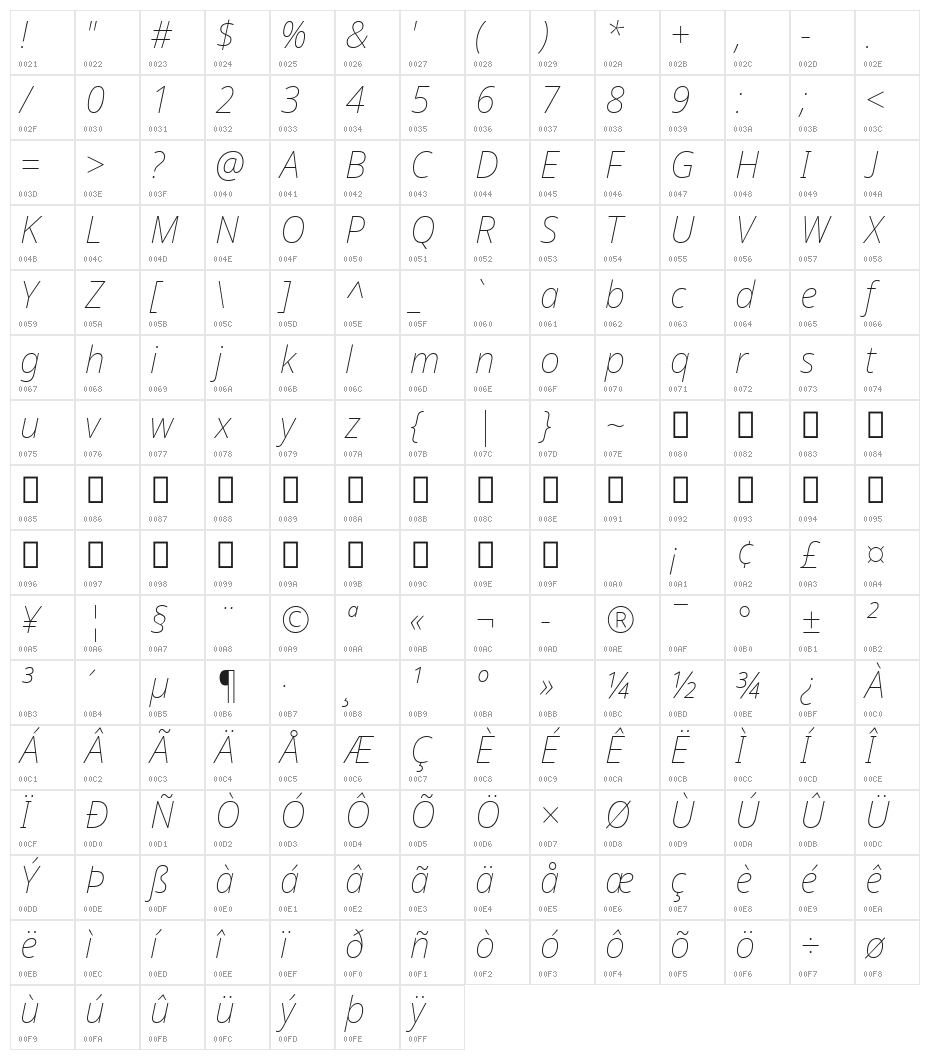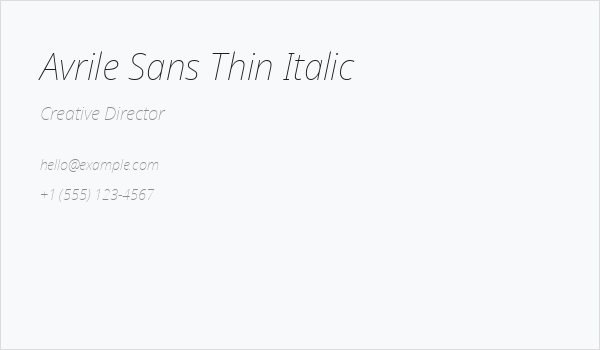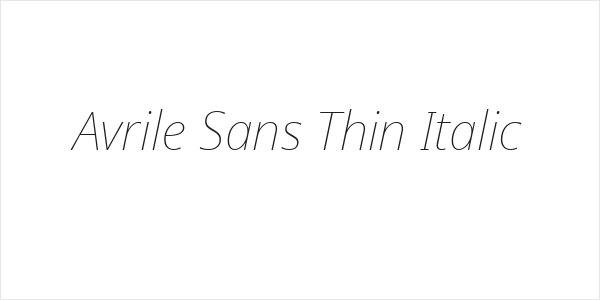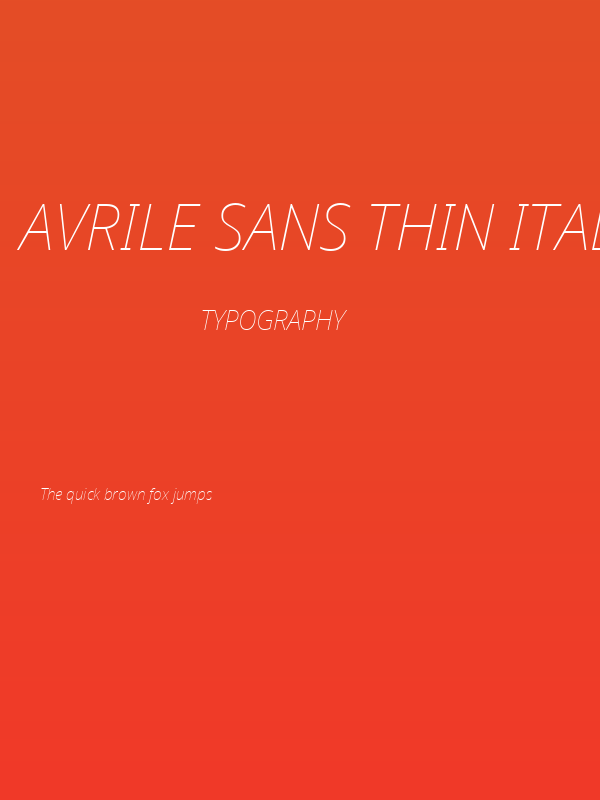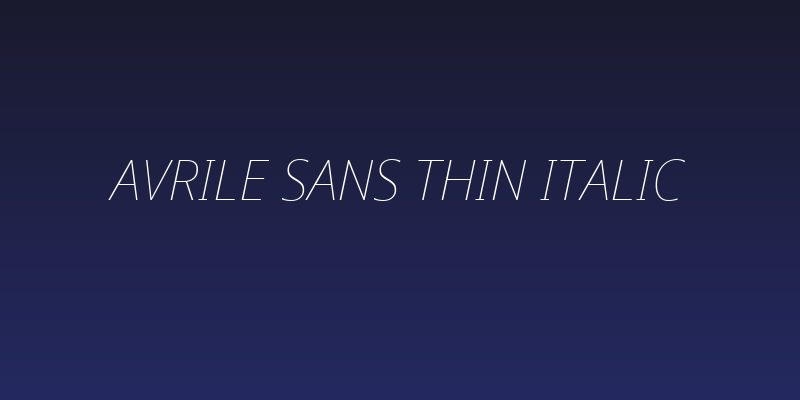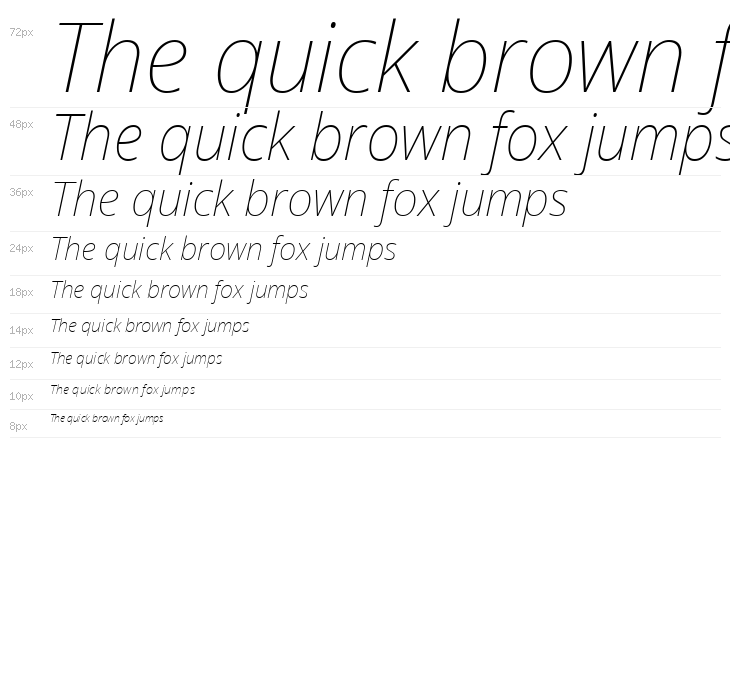
Avrile Sans Thin Italic Font
Avrile Sans Thin Italic Description
This font features a sleek and elegant design with thin, elongated letterforms that convey a sense of modernity and sophistication. The characters are slightly slanted, adding a dynamic and fluid quality to the text. Its minimalist aesthetic is achieved through clean lines and a lack of unnecessary embellishments, making it ideal for contemporary design projects. The font maintains a consistent stroke width throughout, contributing to its refined and polished appearance. Its airy and open structure enhances readability, while the subtle italicization adds a touch of style and grace.
| Proposed Projects | Ideal for fashion magazines, luxury branding, minimalist websites, and modern editorial layouts. |